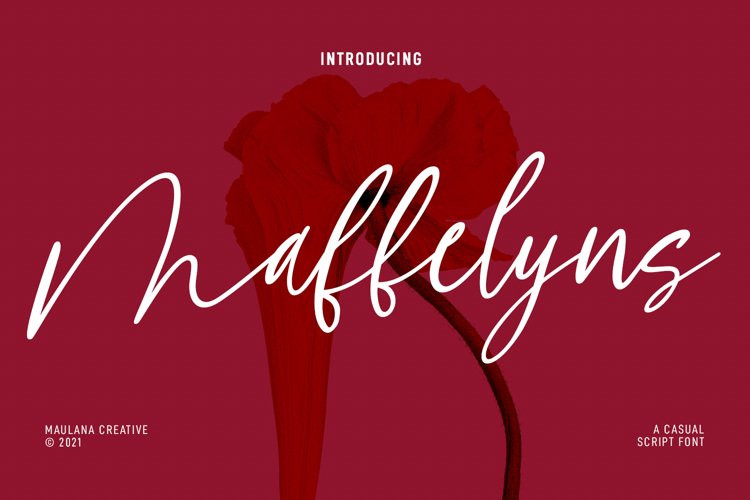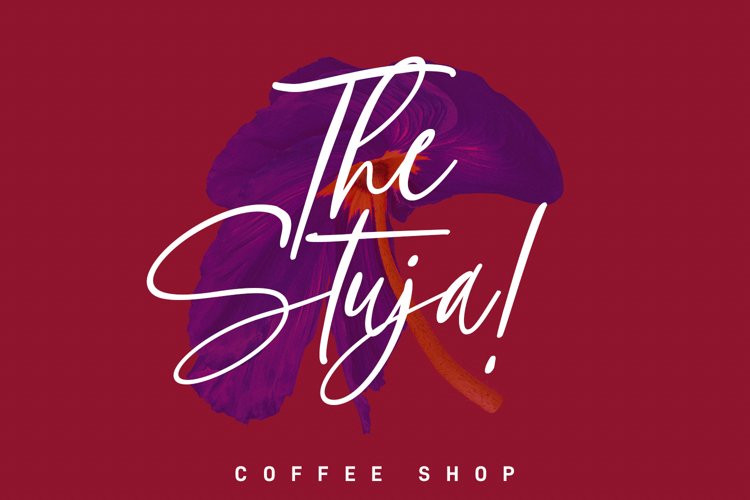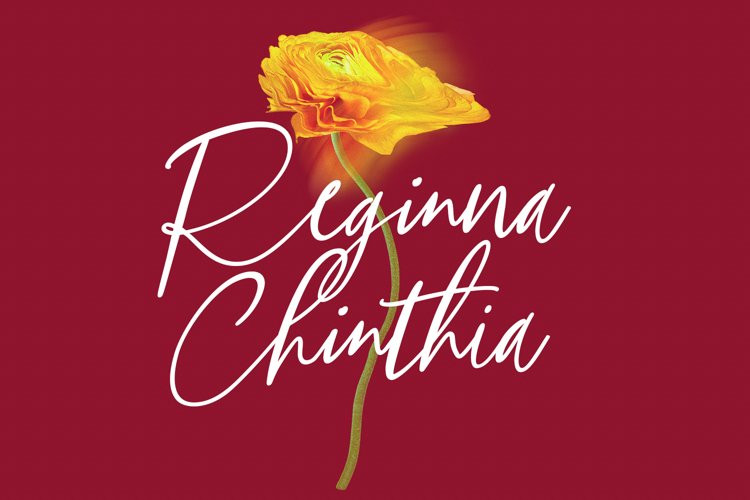
Maffelyns Font
Maffelyns is a casual script font. With contrast light stroke, fun character with a bit of ligatures. To give you an extra creative work. Maffelyns font support multilingual more than 100+ language. This font is good for logo design, Social media, Movie Titles, Books Titles, a short text even a long text letter and good for your secondary text font with sans or serif. Make a stunning work with Maffelyns font.